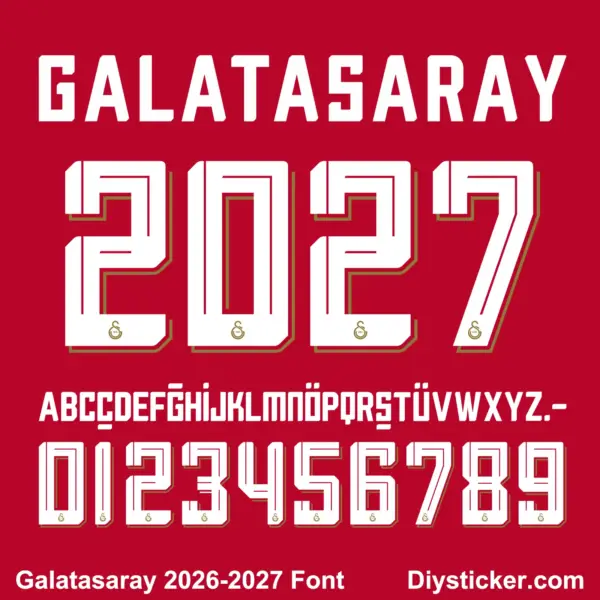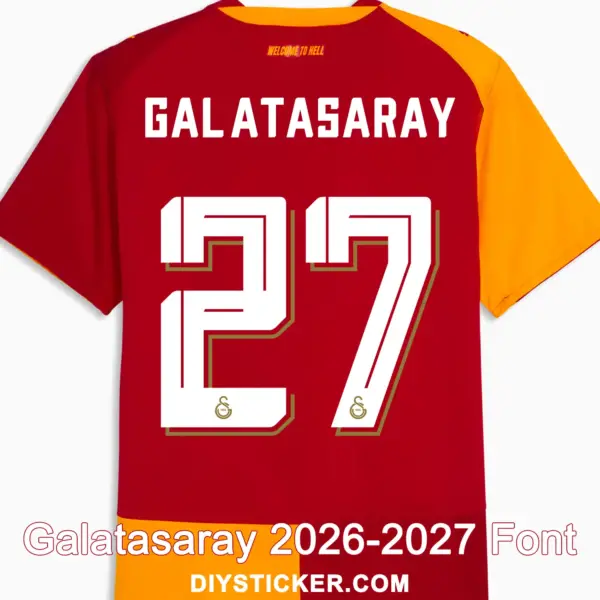
Celebrate the fiery passion of Aslanlar with this premium typography asset. This package delivers the official-style Galatasaray 2026-2027 font and custom 3D shadow numeric vector layout, accurately configured for the upcoming Süper Lig and European campaigns. Engineered specifically for independent apparel brands, custom uniform creators, and professional vinyl cutting shops, this product features an automated instant digital download link immediately following secure checkout.
Galatasaray 2026-2027 Font & Numbers Vector Kit: Premium Turkish Football Customization
Upgrade your custom print production with the high-performance Galatasaray 2026-2027 font and complete numbers set. Designed to perfectly replicate the striking look worn on the pitch at the RAMS Park, this digital toolkit offers unrivaled geometric precision. Whether you are creating an authentic replica nameset for a dedicated fan or preparing retail-ready custom apparel, our vector files ensure factory-fresh alignment. Discover more iconic European club typography layouts by exploring our curated repository.
Aesthetic Design Breakdown & Typography Engineering
The Galatasaray 2026-2027 font showcases an aggressive, bold block geometry that brings a powerful architectural presence to the shirt:
Dynamic 3D Extrusion & Multi-Line Infill: Moving away from flat, simple dimensions, the numbers feature a sophisticated layered look. A crisp white face is detailed with clean geometric inline cuts, backed by a dramatic chiseled 3D drop-shadow rendered in a gold/red accent trim. This multi-layered design creates an eye-catching isometric appearance on the fabric.
Chiseled Angular Letterforms: The alphabet utilizes a rugged, heavy sans-serif construction with sharp chiseled corners and heavy vertical pillars. This robust engineering ensures shorter or longer player names retain perfect symmetry and massive legibility from any stadium angle.
Integrated Club Identity Monogram: Nestled perfectly within the bottom center baseline of every large digit is the miniature, official-style Galatasaray “GS” crest monogram, rounding out its authentic match-ready appearance.
High-Contrast Solid White Palette: The solid white primary body offers an exceptional visual contrast when pressed over the club’s traditional split-half red and orange (Parçalı) home jersey.